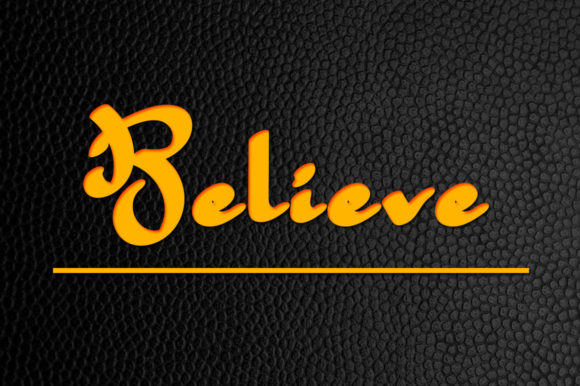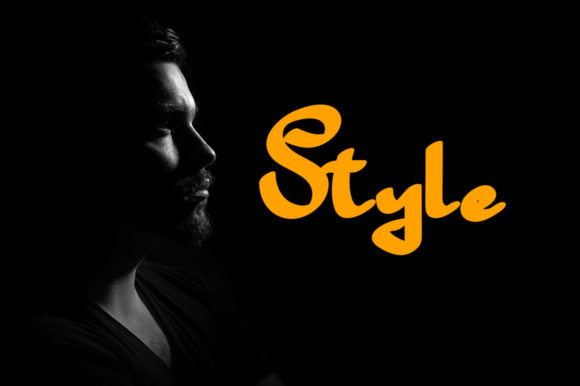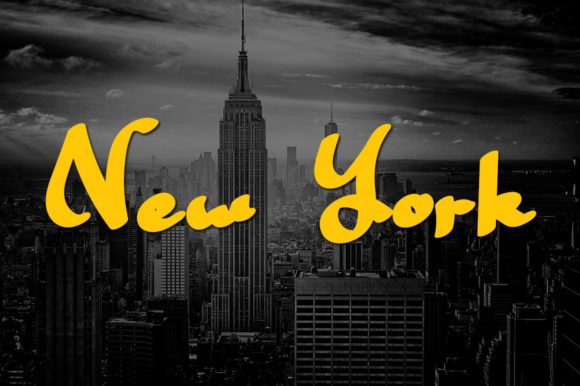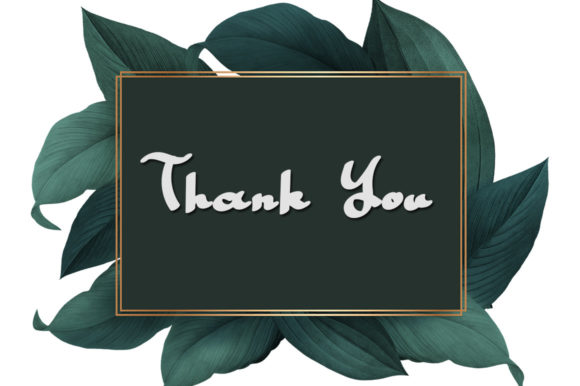
Bellagia Font
About Bellagia Font
Bellagia is a fun and quirky handwritten font. Its slightly chunky letters make this font a great option for newsletters, social media posts, business cards, watermarks, photography, and so much more!